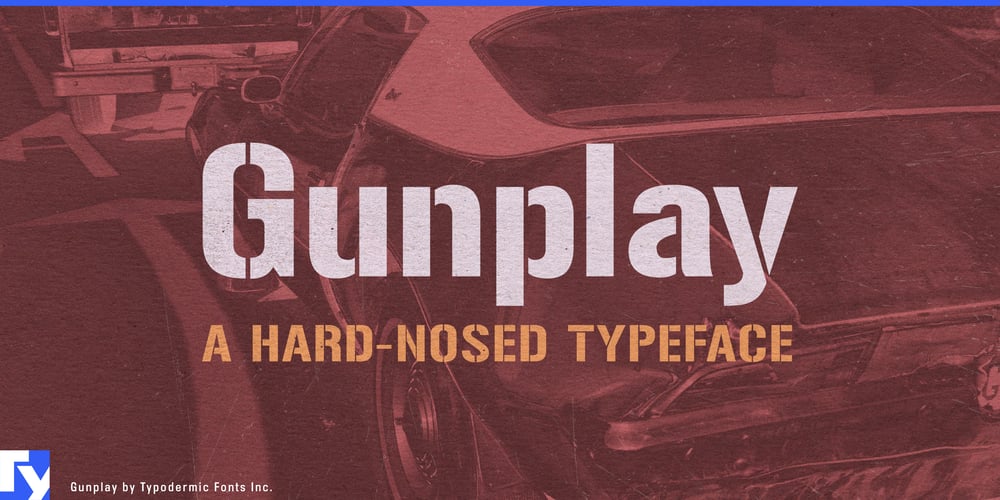
Gunplay
Gunplay font
Gunplay Font Family was designed by Ray Larabie and published by Typodermic. Gunplay contains 4 styles and family package options. Lock and load your designs with Gunplay, the typeface that doesn’t just make a statement—it kicks down the door and demands attention. This isn’t just a font; it’s a typographic tour de force, ready to arm your projects with the raw power of pure, unadulterated grit.Forged in the crucible of 1970s cinematic cool, Gunplay draws its inspiration from “The Getaway,” but it’s not content to be a mere homage. Each character is a testament to tenacity, hewn from the same stuff as the toughest film noir antiheroes. But Gunplay isn’t a one-trick pony. With three distinct special effect styles in its arsenal, it’s ready to adapt to any design firefight. Need to make your headlines pop like a .44 Magnum? Gunplay’s got you covered. Want to add a touch of danger to your body text? Gunplay can do that too, with the subtlety of a silenced pistol.This typeface doesn’t just sit on the page—it stakes its claim. Use it for branding, and watch as it transforms your logo into an icon of uncompromising strength. Deploy it in posters, and see how it commands attention like a rogue cop in a room full of suspects. From gritty urban streetwear to hard-hitting editorial design, Gunplay is the secret weapon in your typographic arsenal. Gunplay isn’t afraid to cross borders, either. Supporting a wide range of Latin-based European languages, it’s ready to spread its message of typographic rebellion from the neon-lit streets of Stockholm to the sun-baked plazas of Madrid. It’s the linguistic equivalent of an international man of mystery, fluent in the universal language of badassery.In a world of polite, well-behaved fonts, Gunplay is the maverick that plays by its own rules. It’s for designers who understand that sometimes, to make a real impact, you need to load your typography with high-caliber attitude. It’s for brands that aren’t afraid to show their edge, to revel in the raw, unfiltered essence of pure visual adrenaline.It’s time to break free from the confines of polite typography and embrace the raw power of a font that means business. The future of bold design is here, and it speaks in the uncompromising voice of Gunplay. Are you tough enough to handle it?